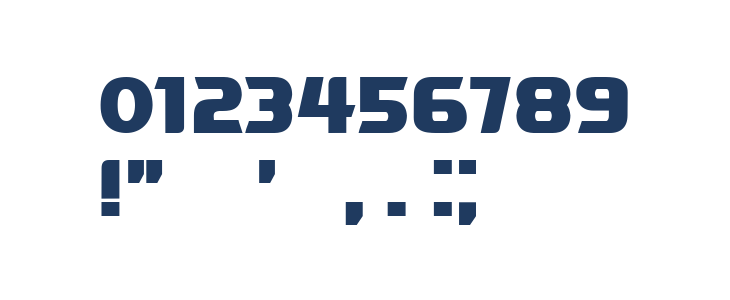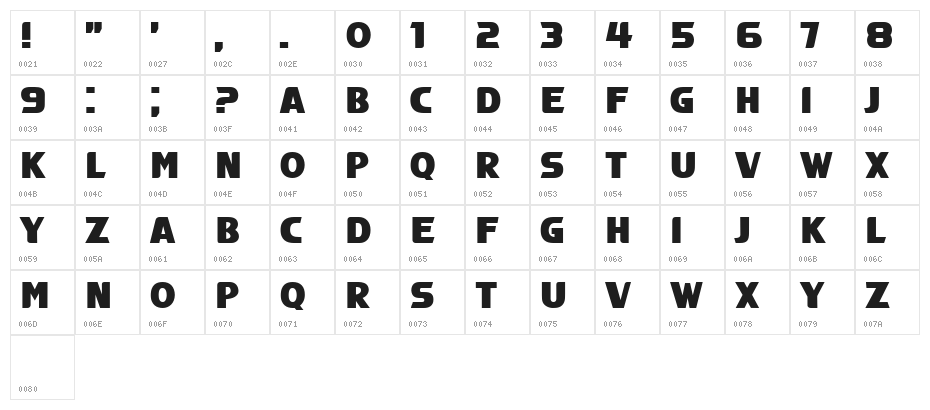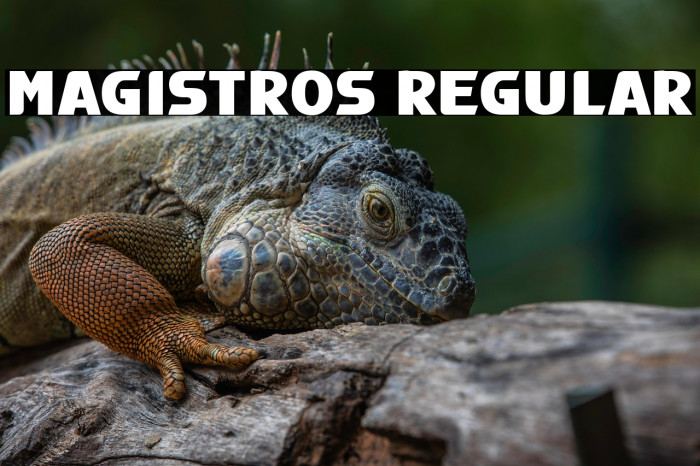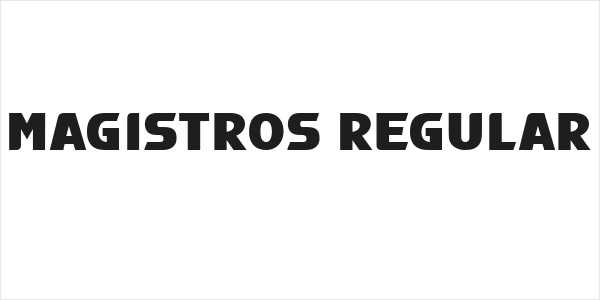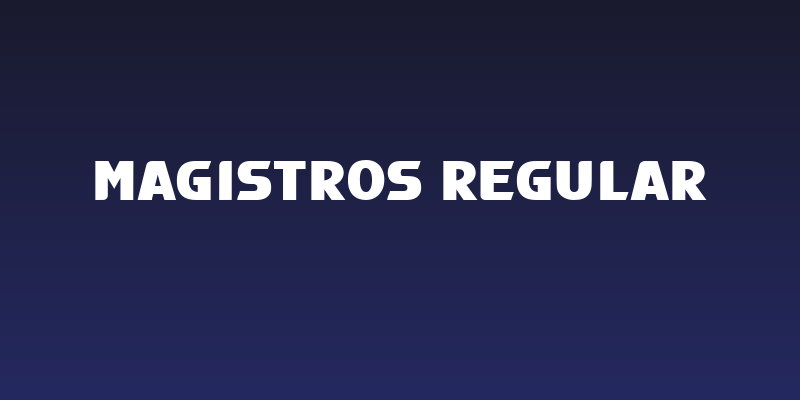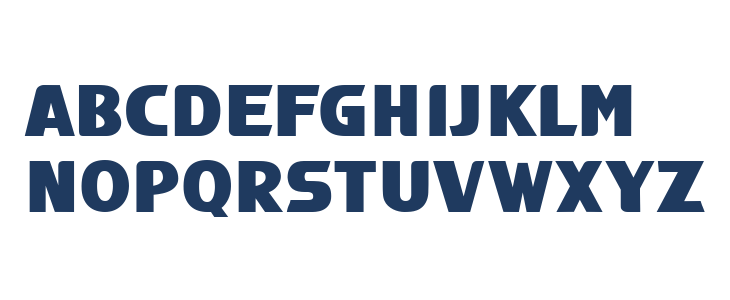
Magistros Regular Font
Magistros Regular Description
This font features a bold and modern design with a strong geometric influence. The characters are robust and have a slightly condensed appearance, giving them a powerful and impactful presence. The uppercase letters are uniform in height, while the lowercase letters maintain a consistent style that complements the uppercase. The numerals are clear and easily distinguishable, making them suitable for various applications. The special characters are designed to match the overall aesthetic, ensuring a cohesive look across all text elements. This font's boldness and clarity make it ideal for attention-grabbing designs.
Proposed ProjectsIdeal for branding, headlines, posters, and digital media where a strong visual impact is needed.